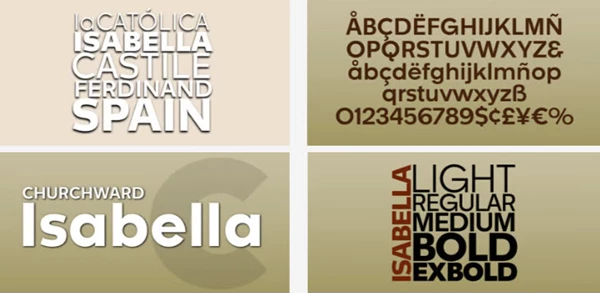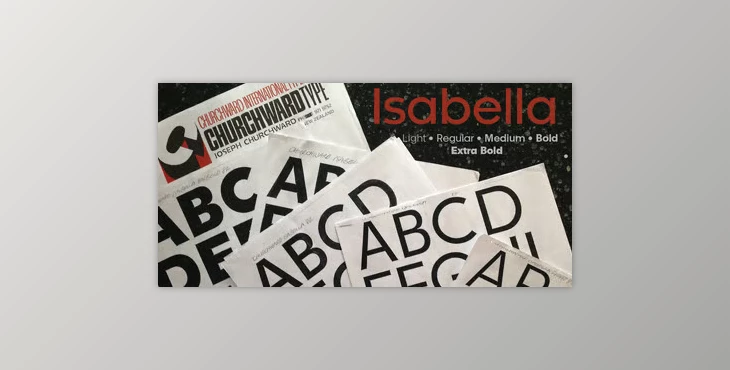
Churchward Isabella is a versatile collection of typefaces. Designed by Joseph Churchward in the 1980s, this geometric sans serif typeface is meant to be a tried and true sans serif for screen or print. It's simple and easy to read, making it a perfect go-to for text, headlines, and display everywhere in between. There are five different weights available: Light, Regular, Medium, Bold, and Extra Bold.
Every font within the Churchward Isabella collection is furnished with proportional and tabular figures, superiors and inferiors, and unlimited fraction capabilities. It also supports an extended character set for many Western European languages, making this typeface not only practical but functional in many scenarios from creative works to professional documents.